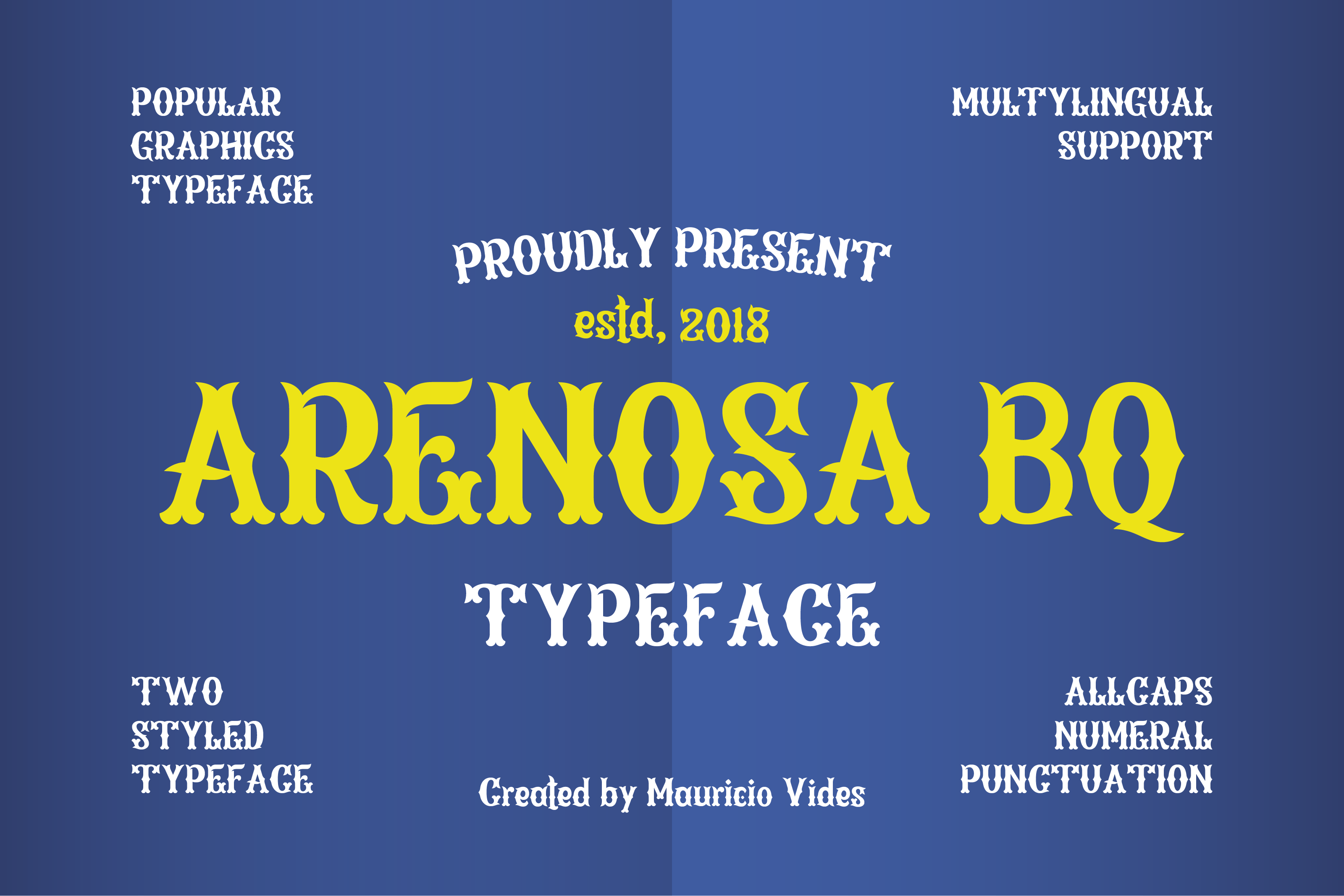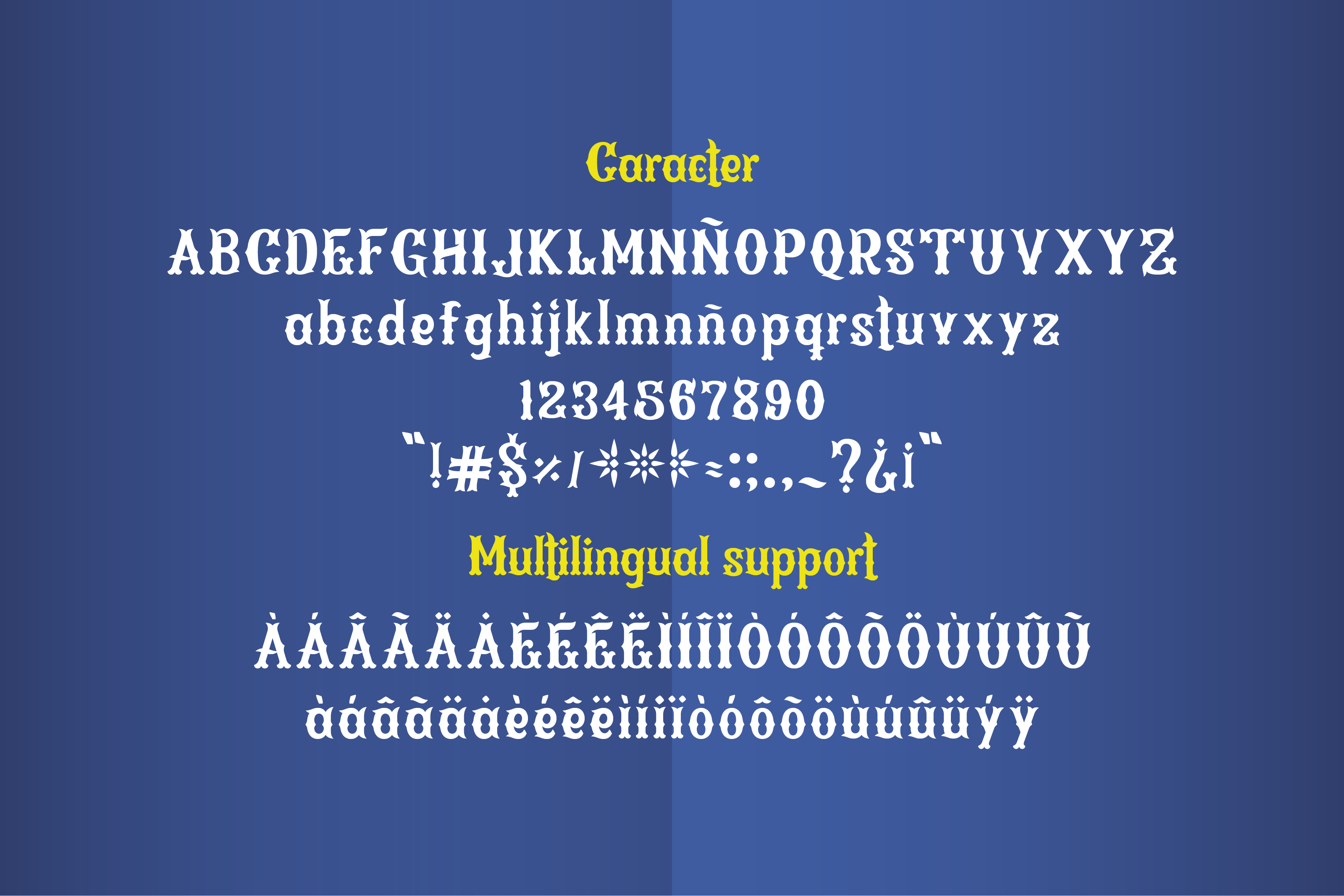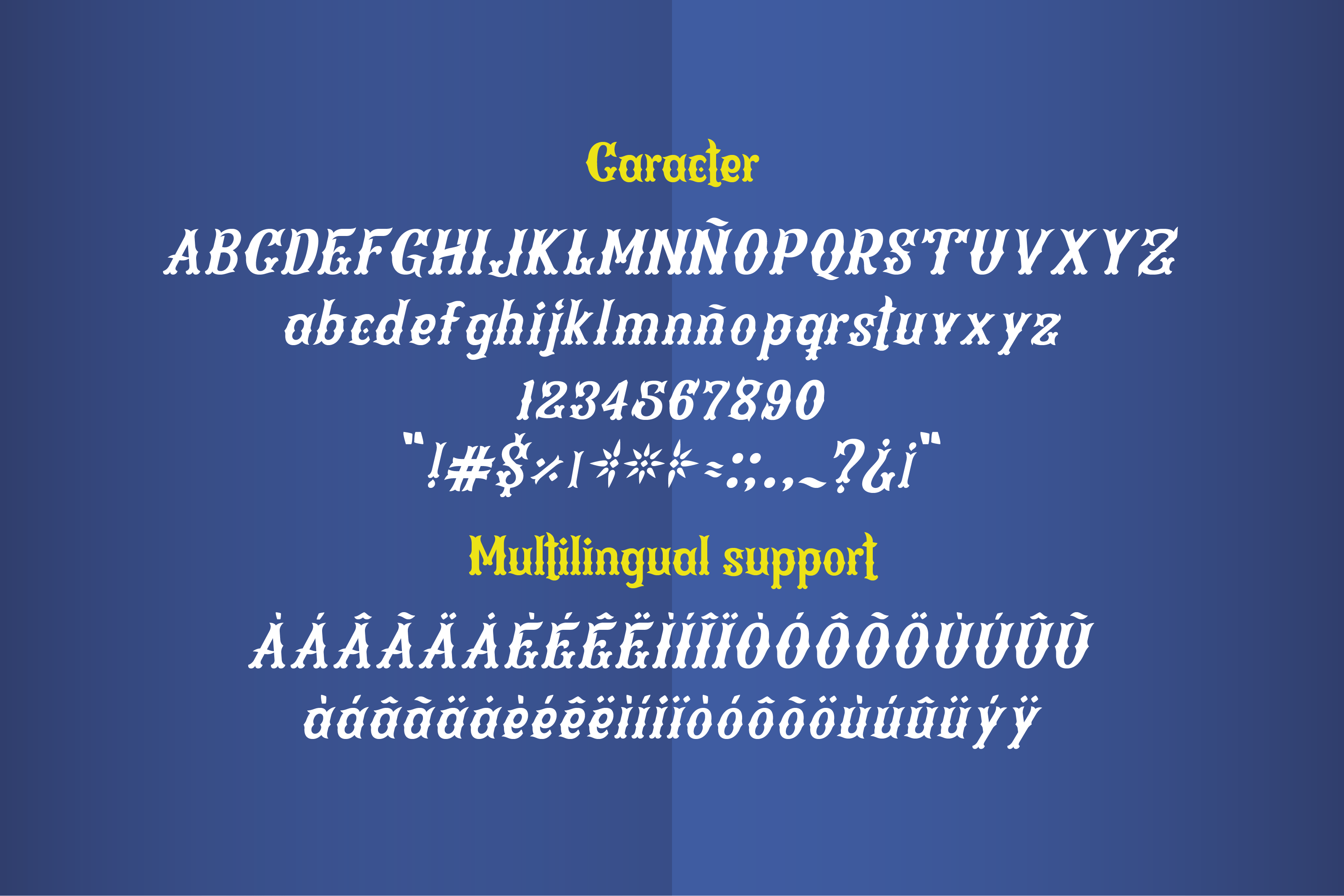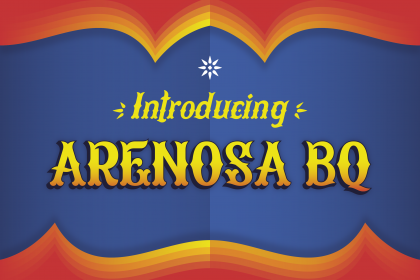
Arenosa BQ Font
Introducing Arenosa BQ. Arenosa BQ are inspired by the popular graphics of the city of Barranquilla, it´s perfect to emulate the popular graphics of the city. The structure of Arenosa BQ has a combination of Tuscan and Handwritten styles but with a modern look. The fonts are excellent for the design of posters, logos, illustrations or allusive pieces in the city of Barranquilla.
Mauricio Vides